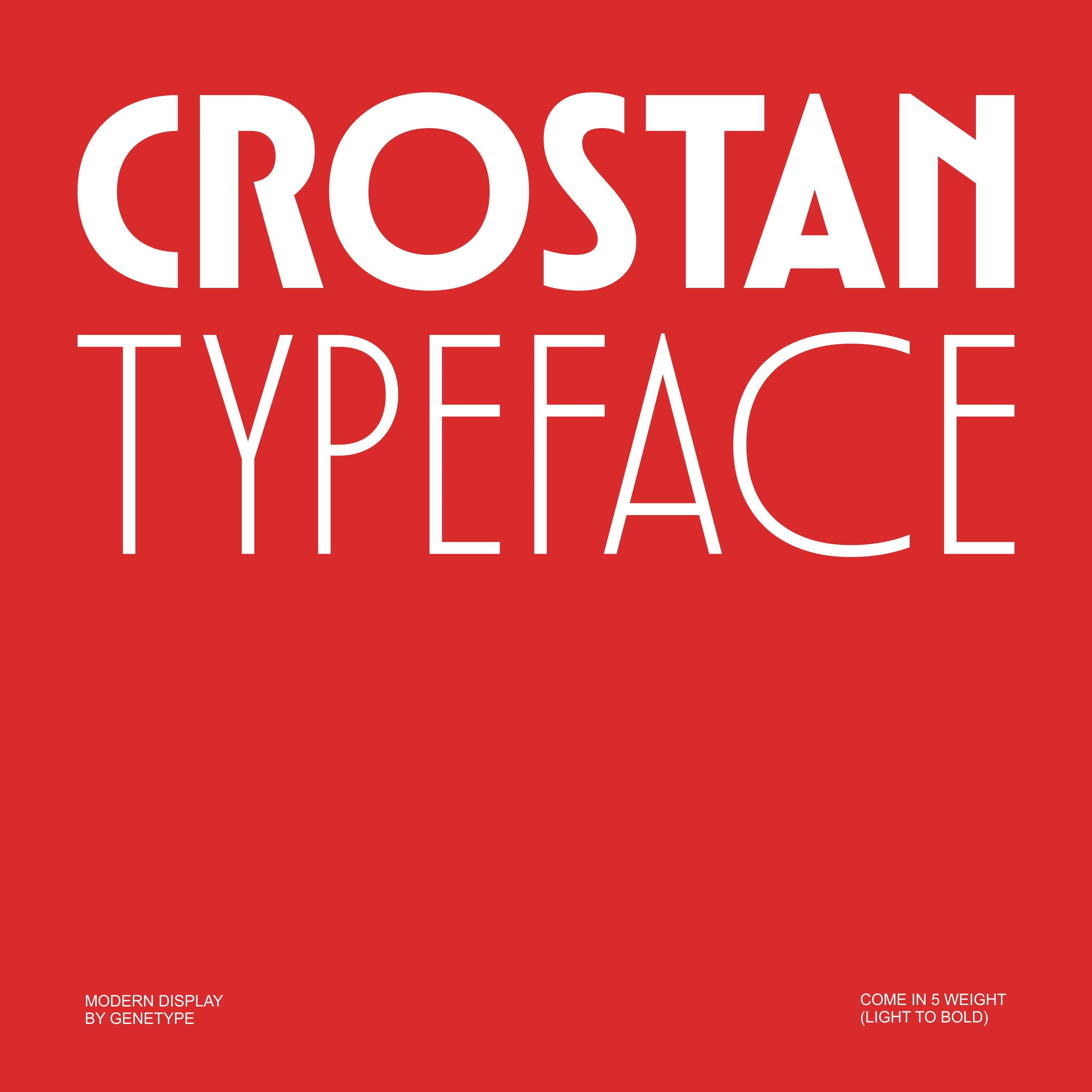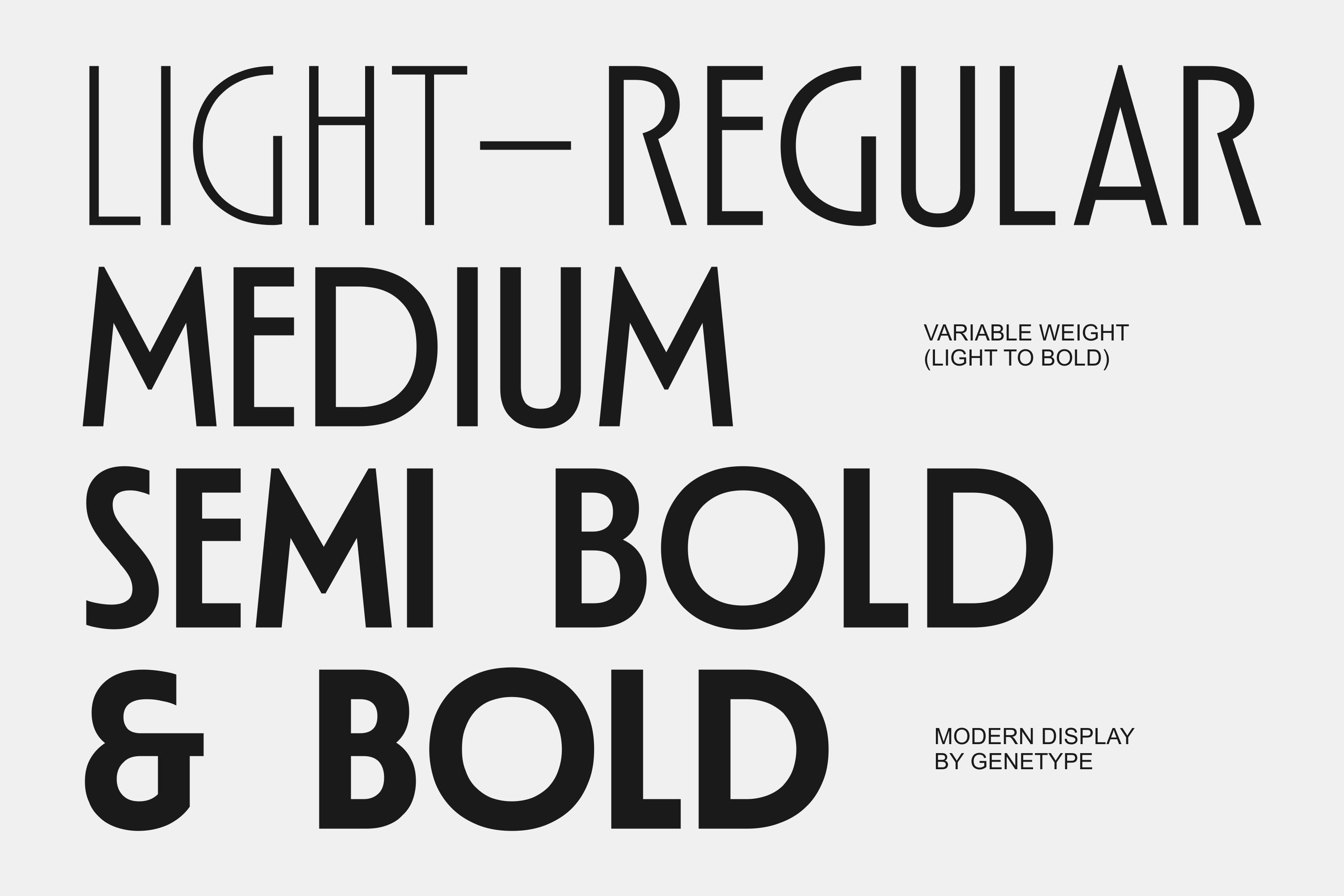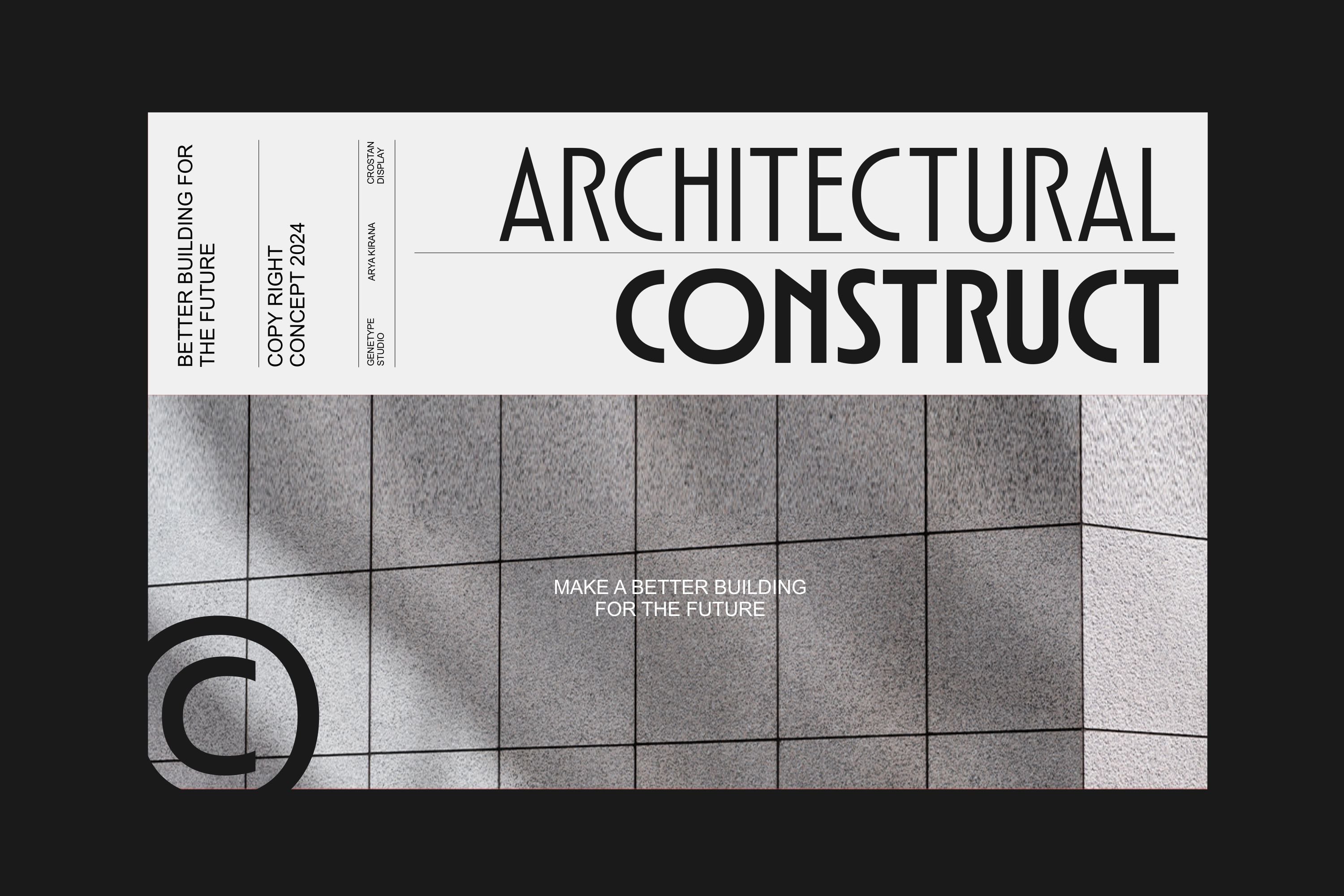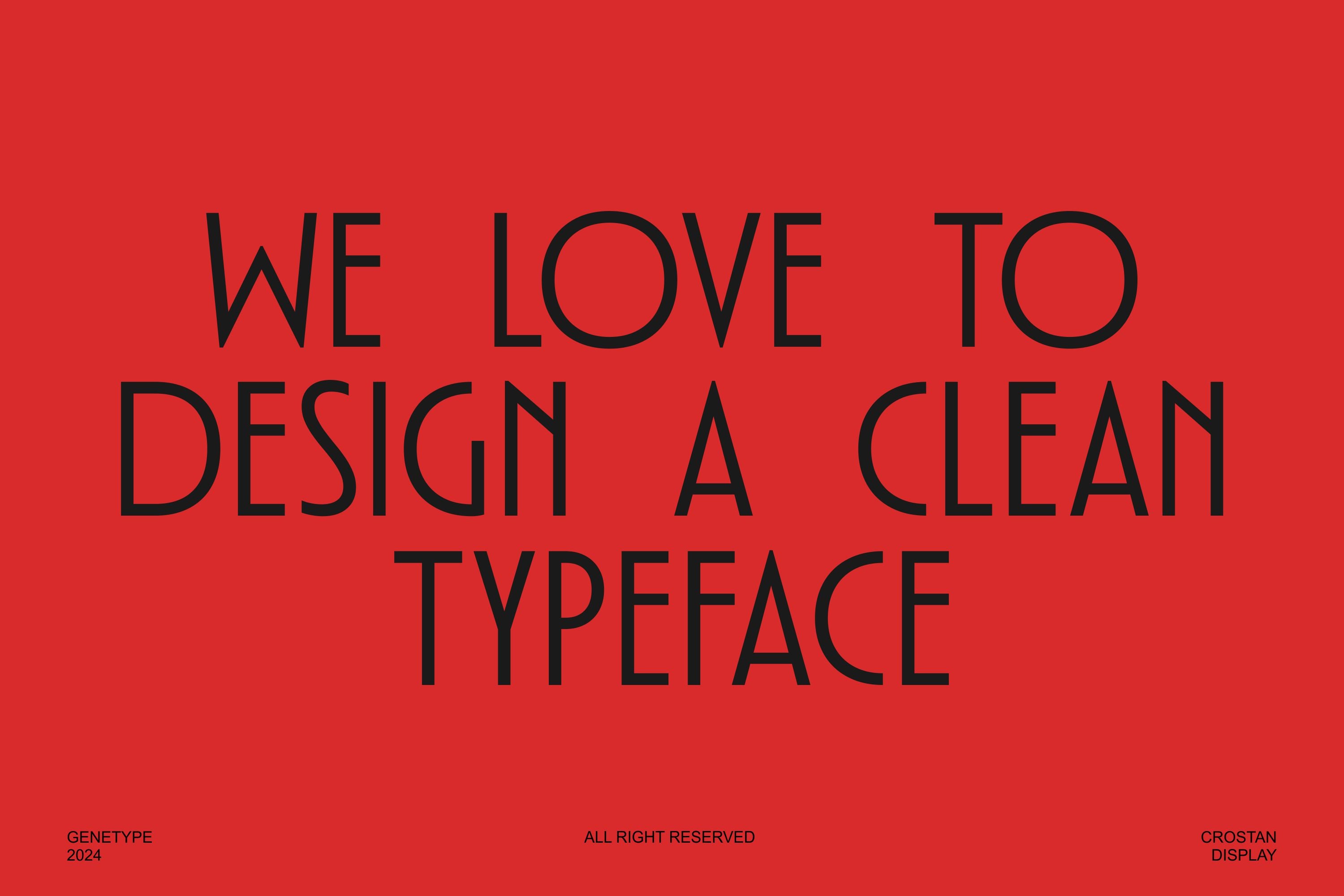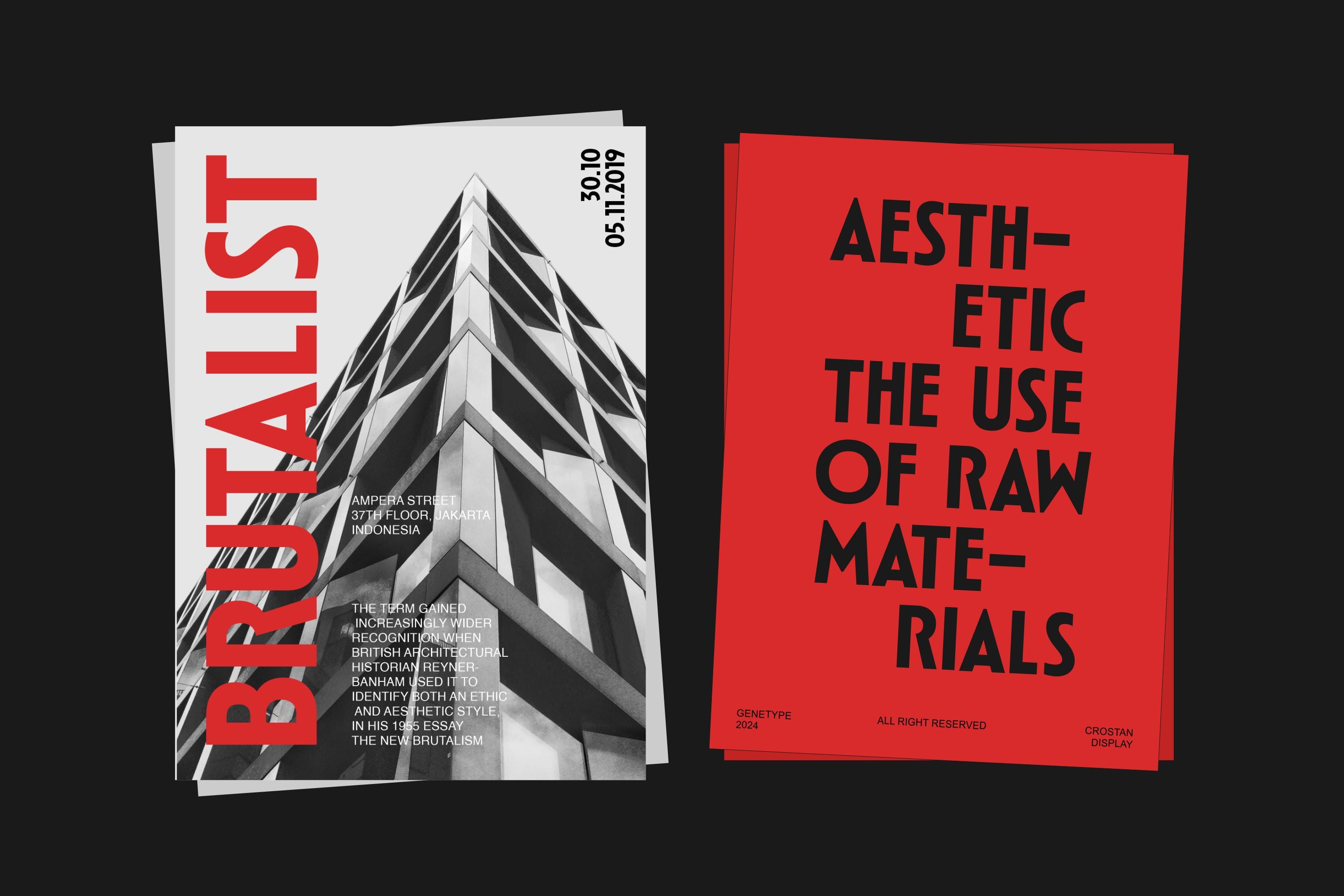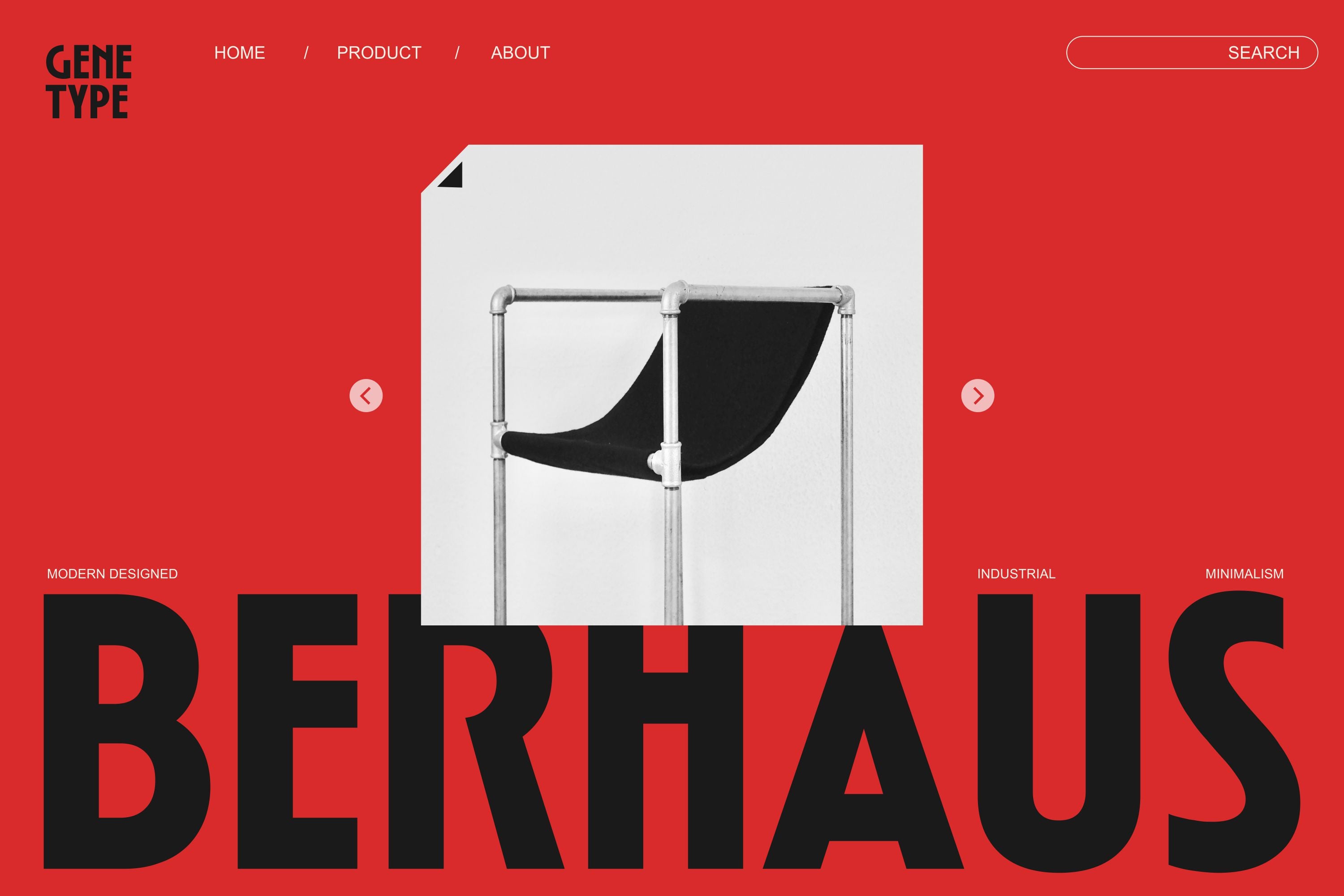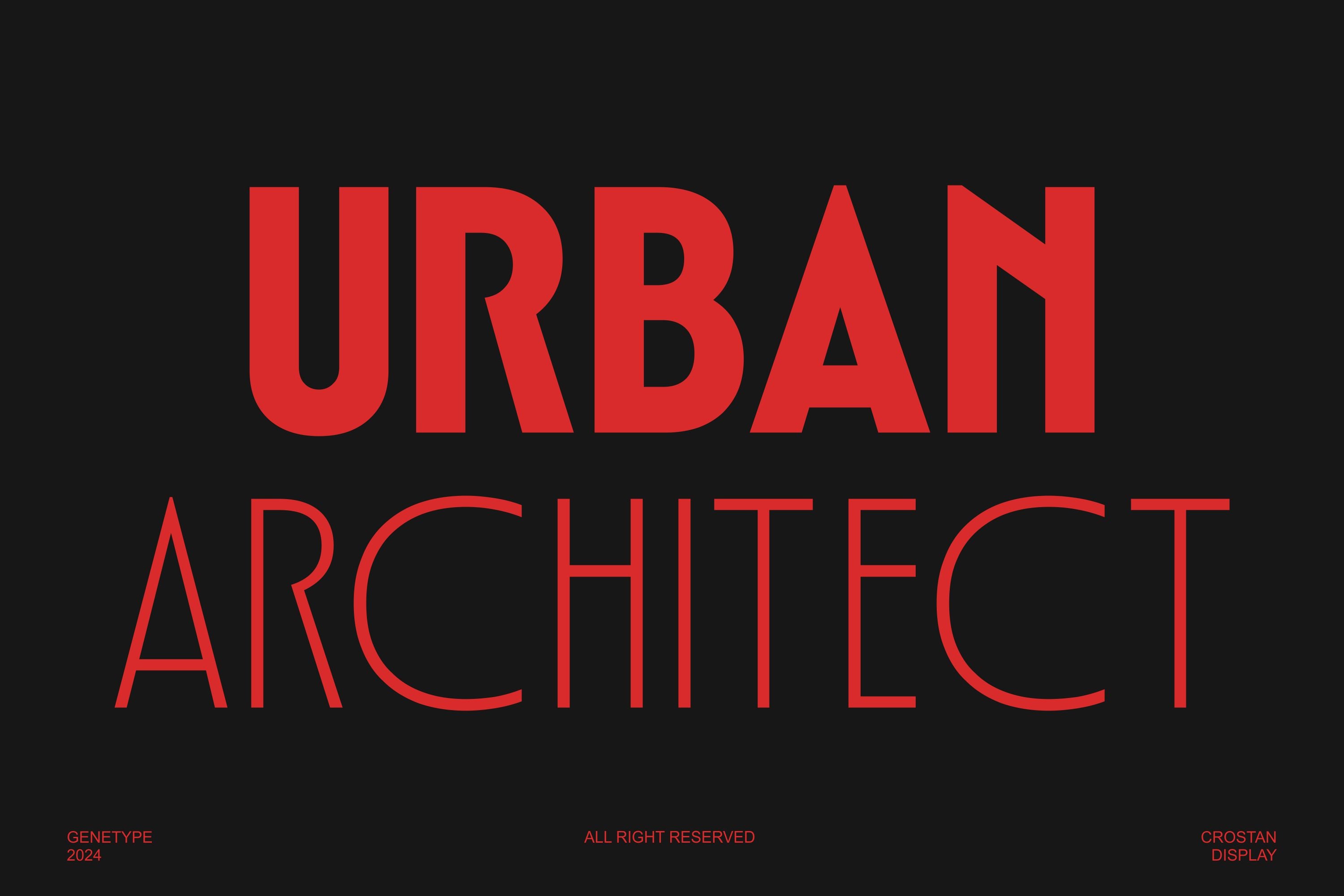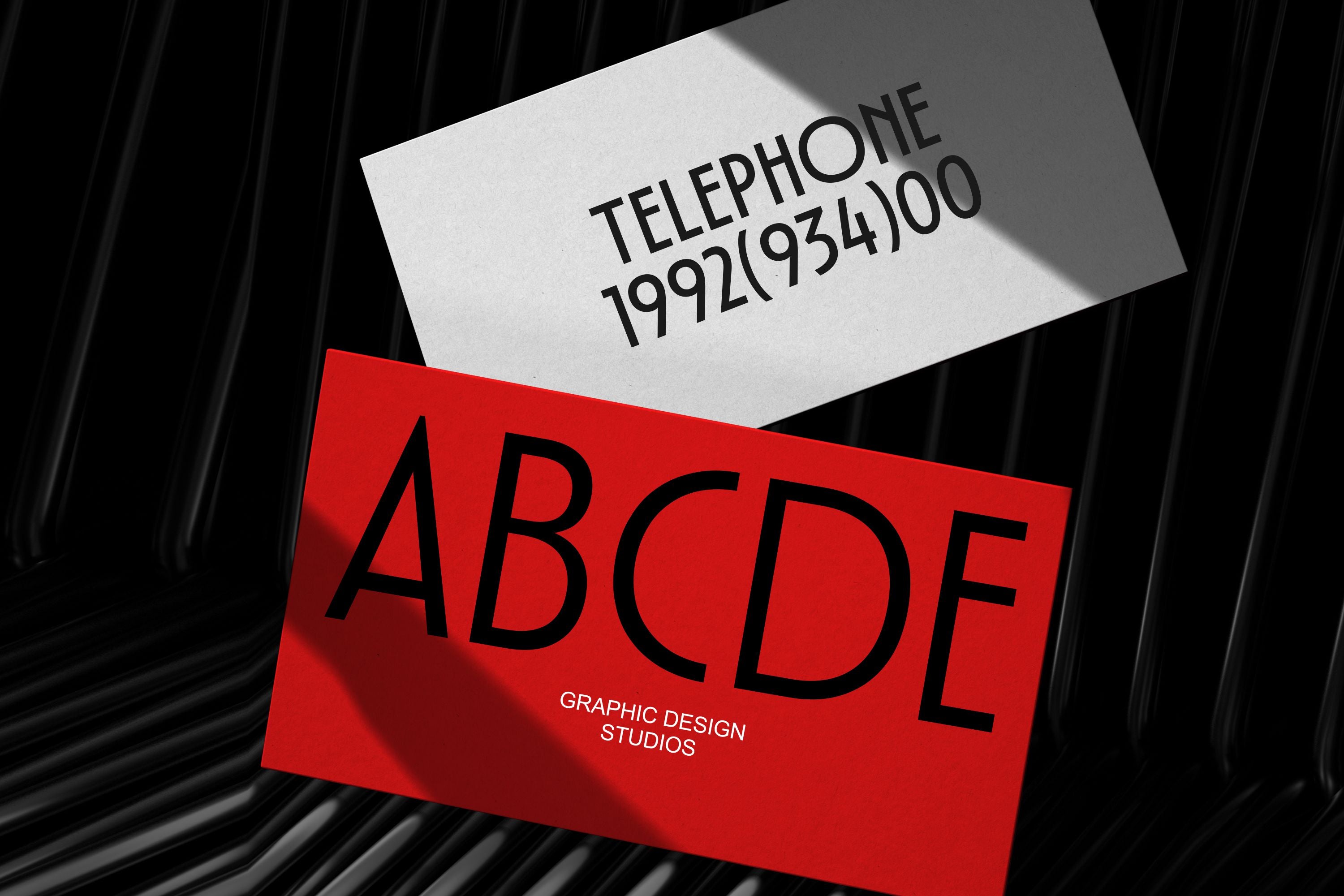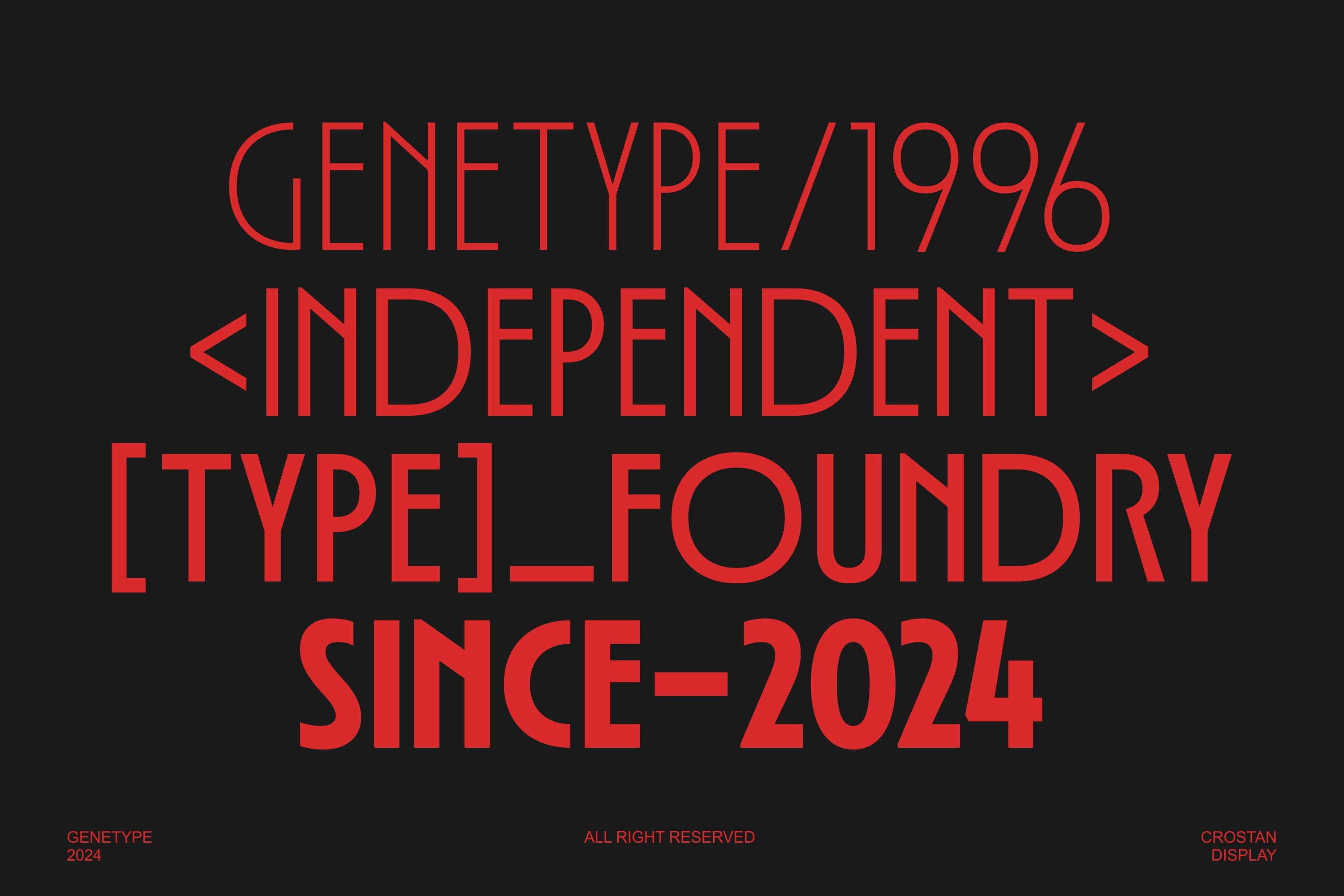
Crostan Typeface
Crostan is a modern geometric display font that blends minimalist structure with strong architectural form.
Featuring clean lines, sharp edges, and elegant proportions, Crostan creates a sophisticated visual tone that’s perfect for editorial design, branding, architecture, and high-end creative projects.
With 5 weights (Light, Regular, Medium, Semi Bold, Bold), Crostan offers full flexibility for both headlines and text. Its sleek and futuristic construction makes it ideal for posters, magazines, websites, logos, and contemporary packaging.
This typeface captures the essence of modern brutalism and Bauhaus-inspired geometry, giving a refined yet assertive personality to your design.
Crostan is a modern geometric display typeface that features clean lines and sharp edges, available in five weights: Light, Regular, Medium, Semi Bold, and Bold. Its design is influenced by modern brutalism and Bauhaus geometry, making it suitable for a variety of professional applications.